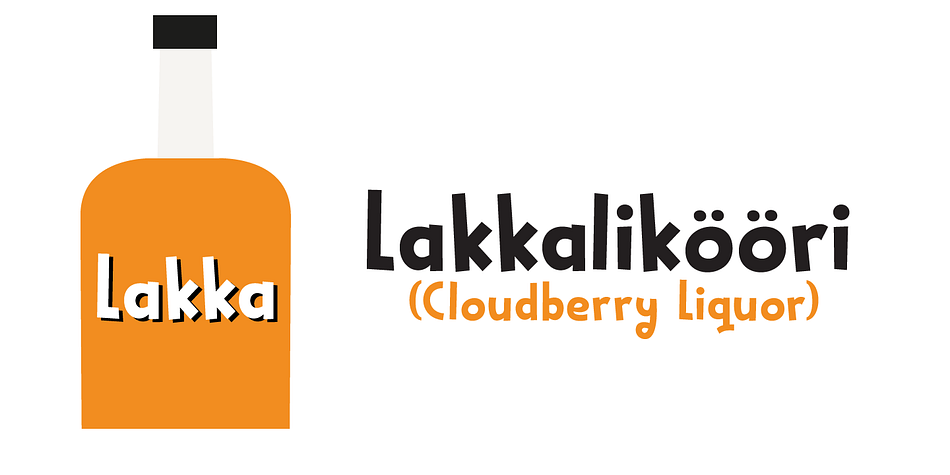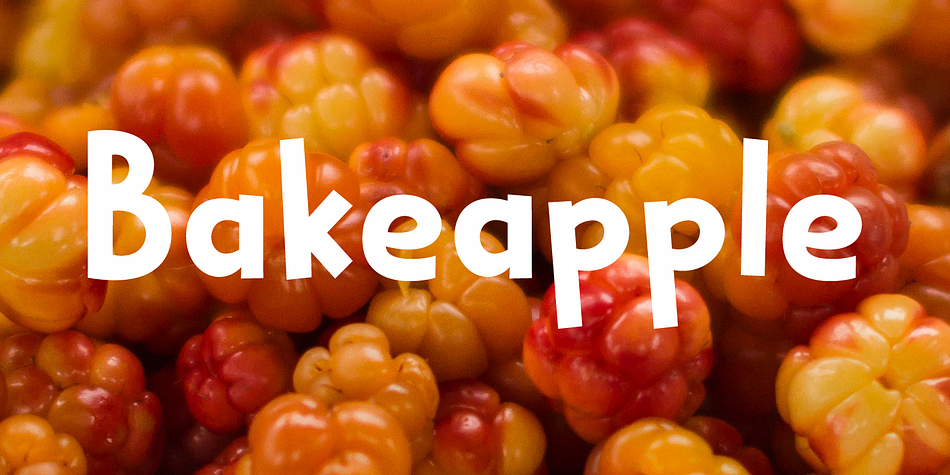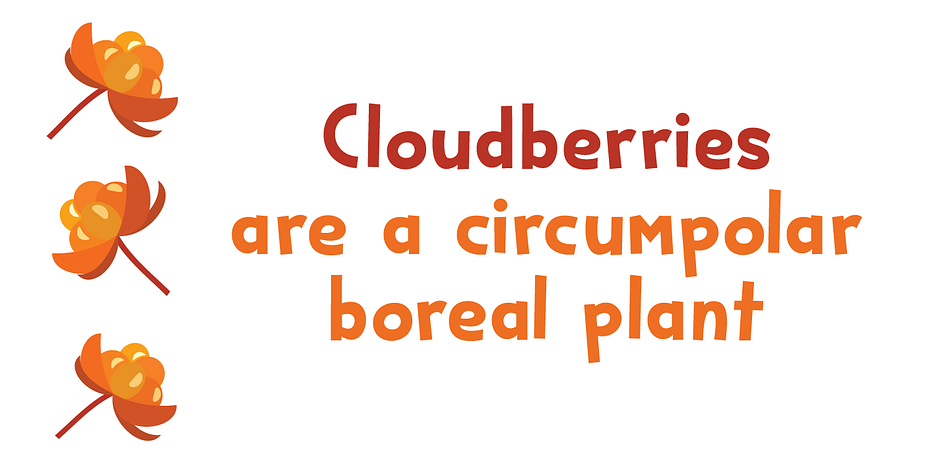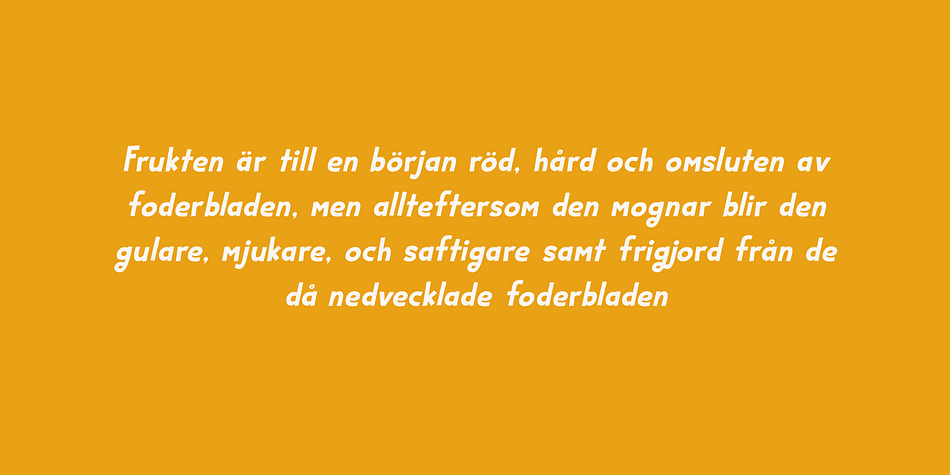
Designed by David Kerkhoff, Bakeapple is a hand display and kids font family. This typeface has two styles and was published by Hanoded.
Bakeapple is an elegant, handmade kids’ font.